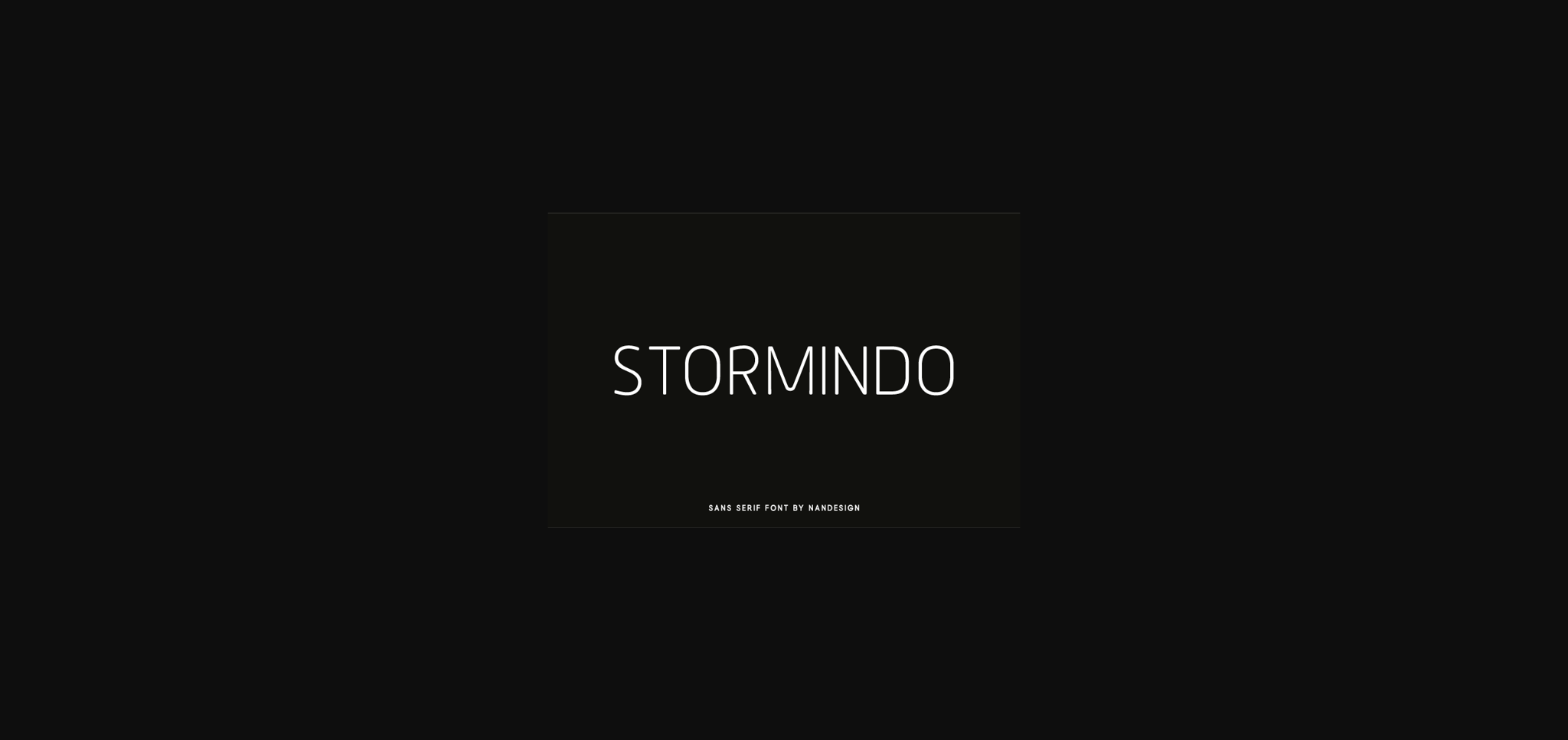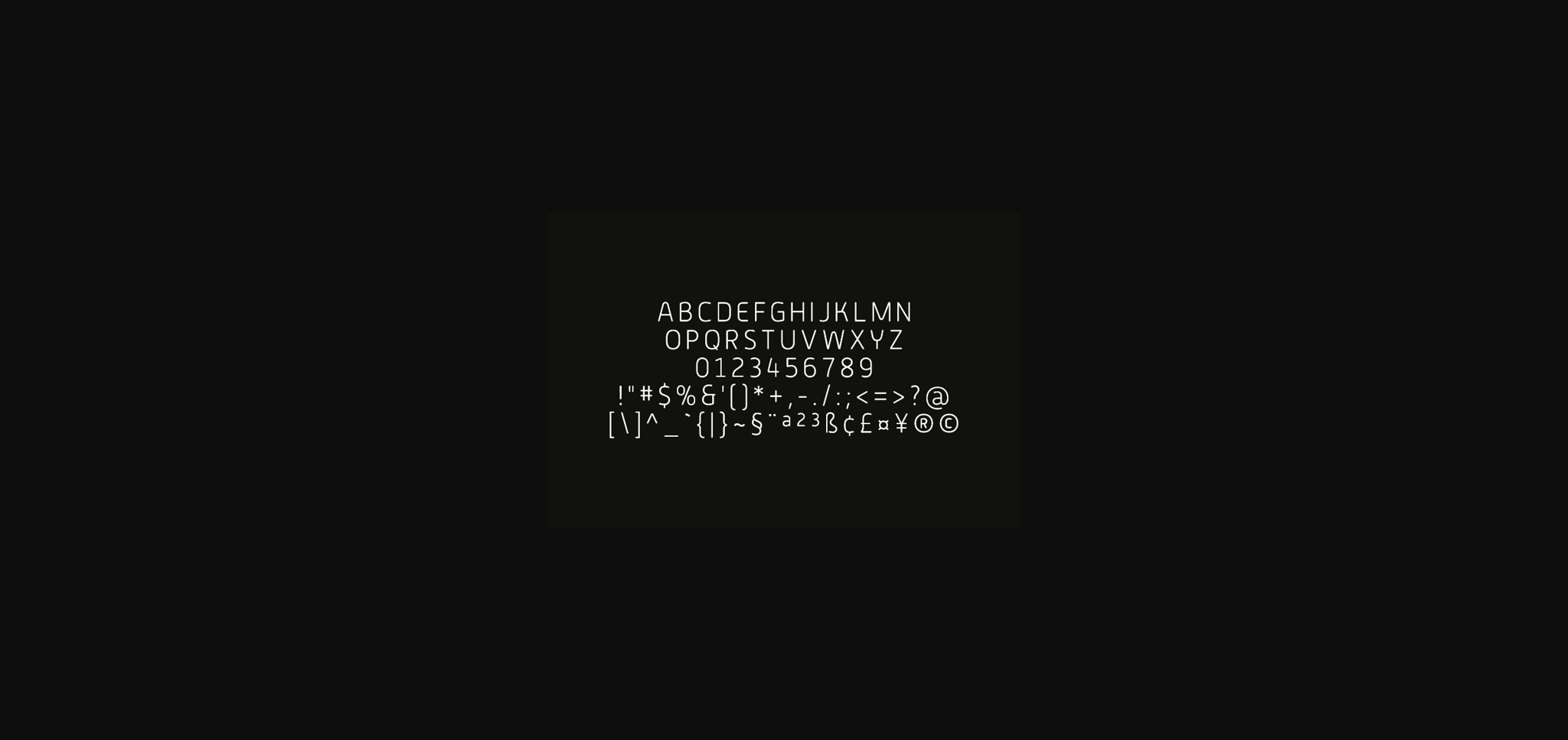
Stormindo simplifies elegance into one truly outstanding sans serif font. This versatile font will appeal to a wide range of crafty ideas, from letterheads and titles, to stationery.